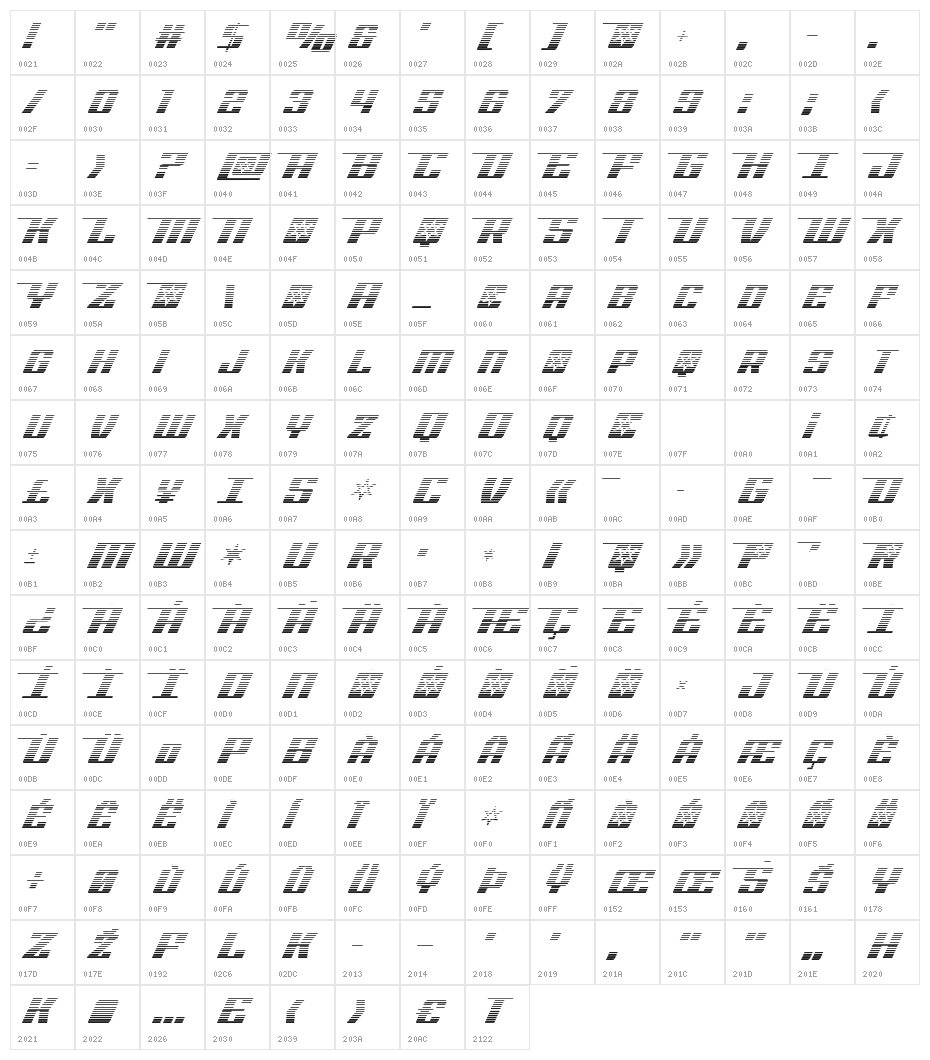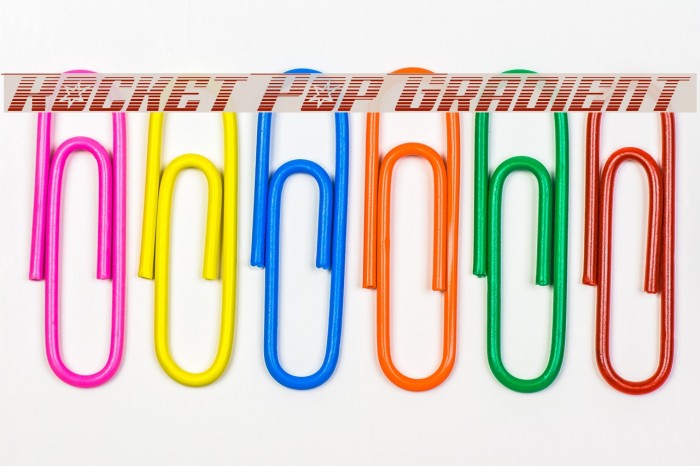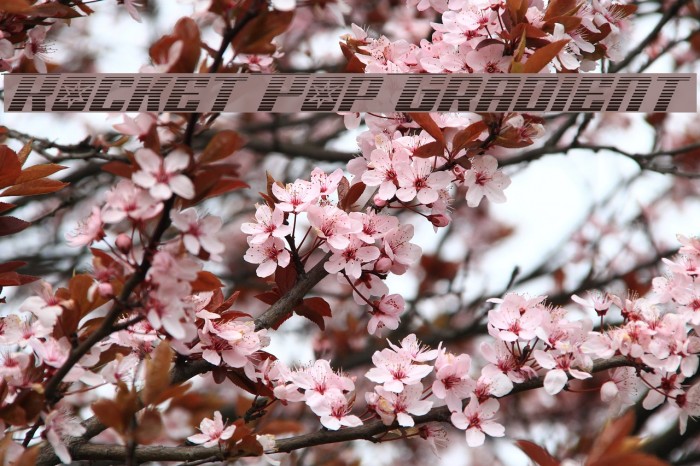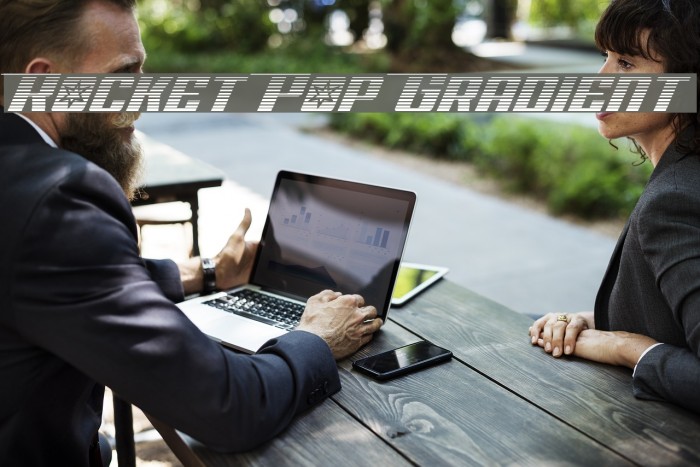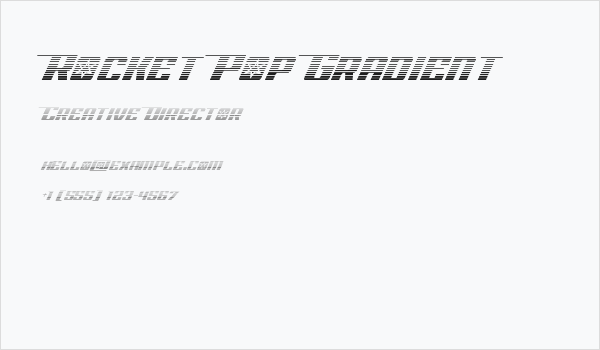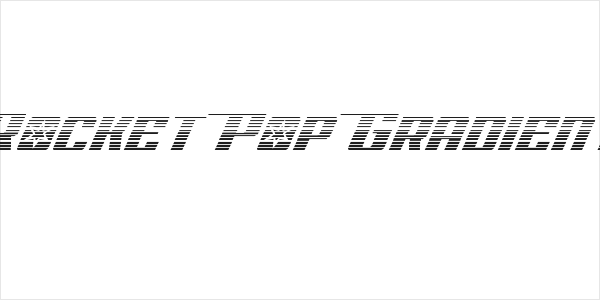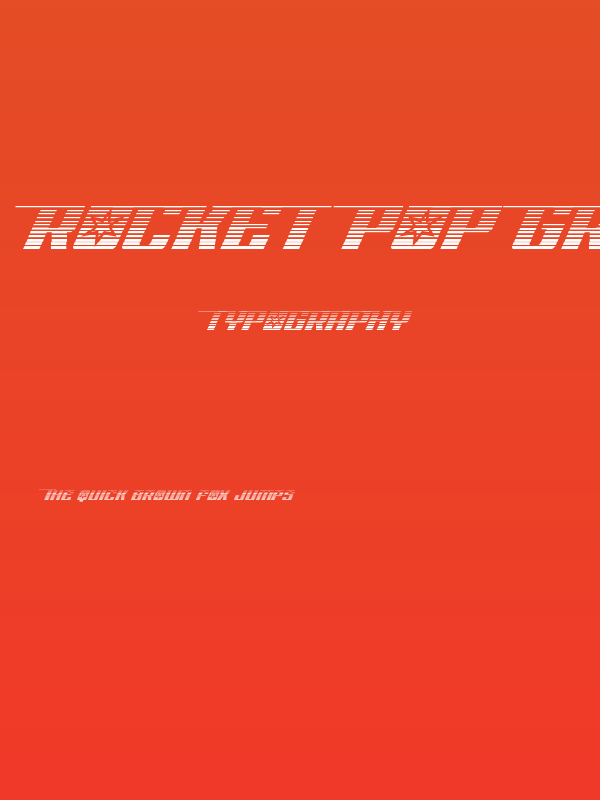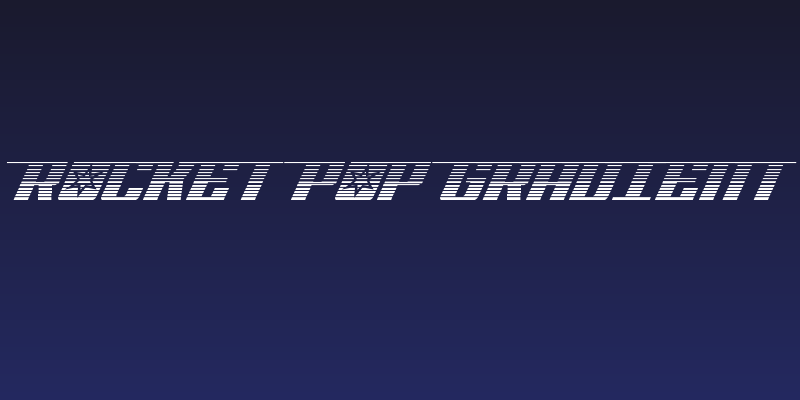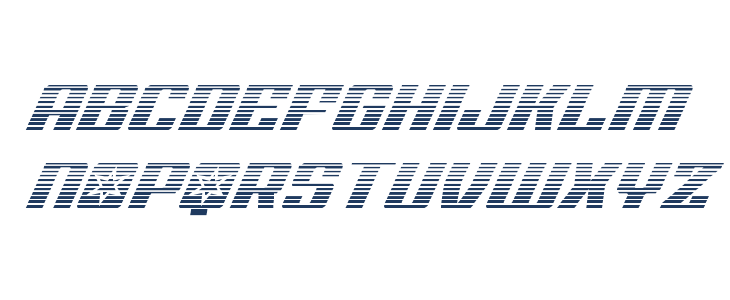
Rocket Pop Gradient Font
Rocket Pop Gradient Description
This font features a dynamic, futuristic design with a distinct striped pattern running through each character, creating a sense of motion and energy. The uppercase and lowercase letters maintain a consistent style, with sharp angles and a slanted orientation that adds to the overall sense of speed. The numbers and special characters are equally stylized, ensuring a cohesive look across all glyphs. The font's unique aesthetic makes it ideal for projects that require a bold, eye-catching typeface.
Proposed ProjectsIdeal for sci-fi themed posters, video game titles, sports branding, and any project needing a bold, modern typeface.